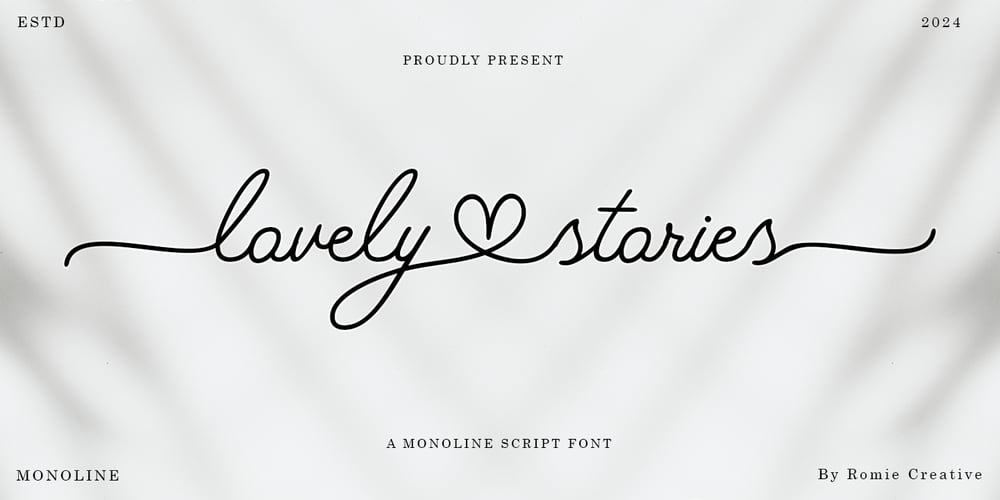
Lovely Stories Font Family was designed by Romi Rahmadi and published by Romie Creative. Lovely Stories contains 1 styles and family package options. Introducing Lovely Stories, a connected, handwritten script font perfect for weddings, organic handwritten logos, modern branding, stylish websites, social media graphics, and more! Included are a full set of beginning and ending lowercase swashes, uppercase beginning swashes, and a special set of connector swashes to link words together, for a unique and custom look.